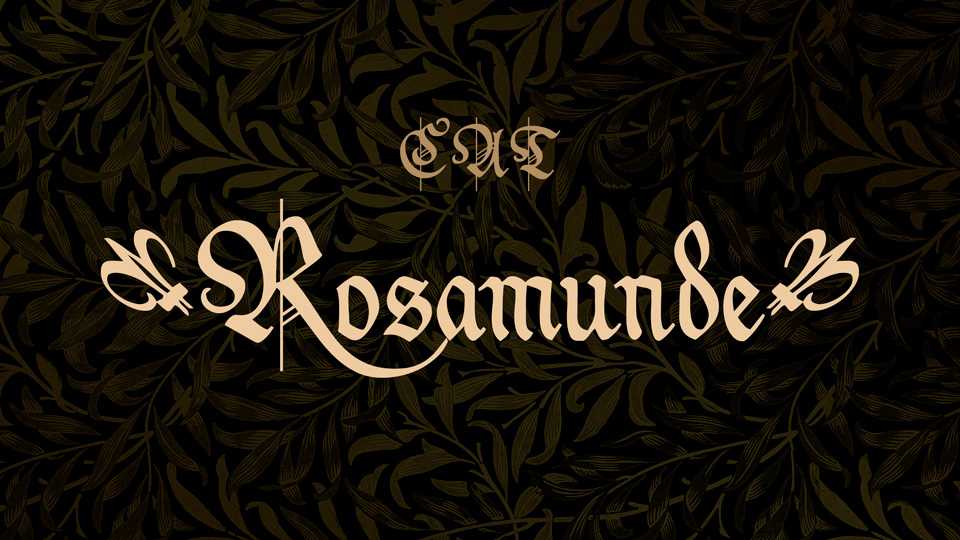
Download Rosamunde font an original blackletter typeface. It gothic, elegant attributes take the form of soft terminals, seductive curves, calligraphic flair and complex character.